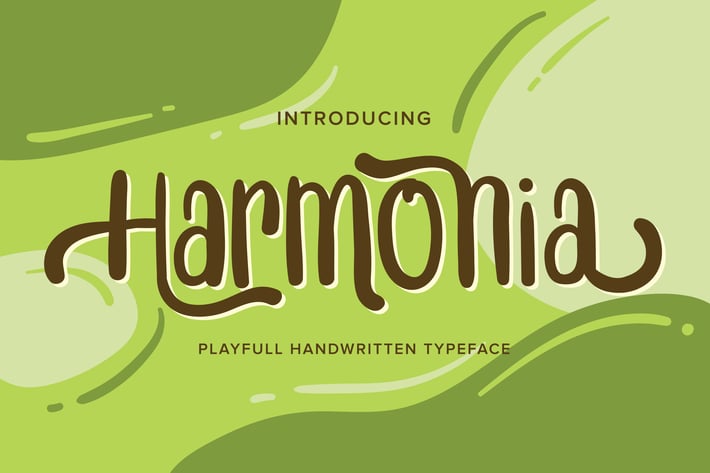
Harmonia | Playfull Handwritten Typeface
Harmonia | Playfull Handwritten Typeface with a calligraphy style, So beautiful on invitation like greeting cards, branding materials, business cards, quotes, posters, and more!